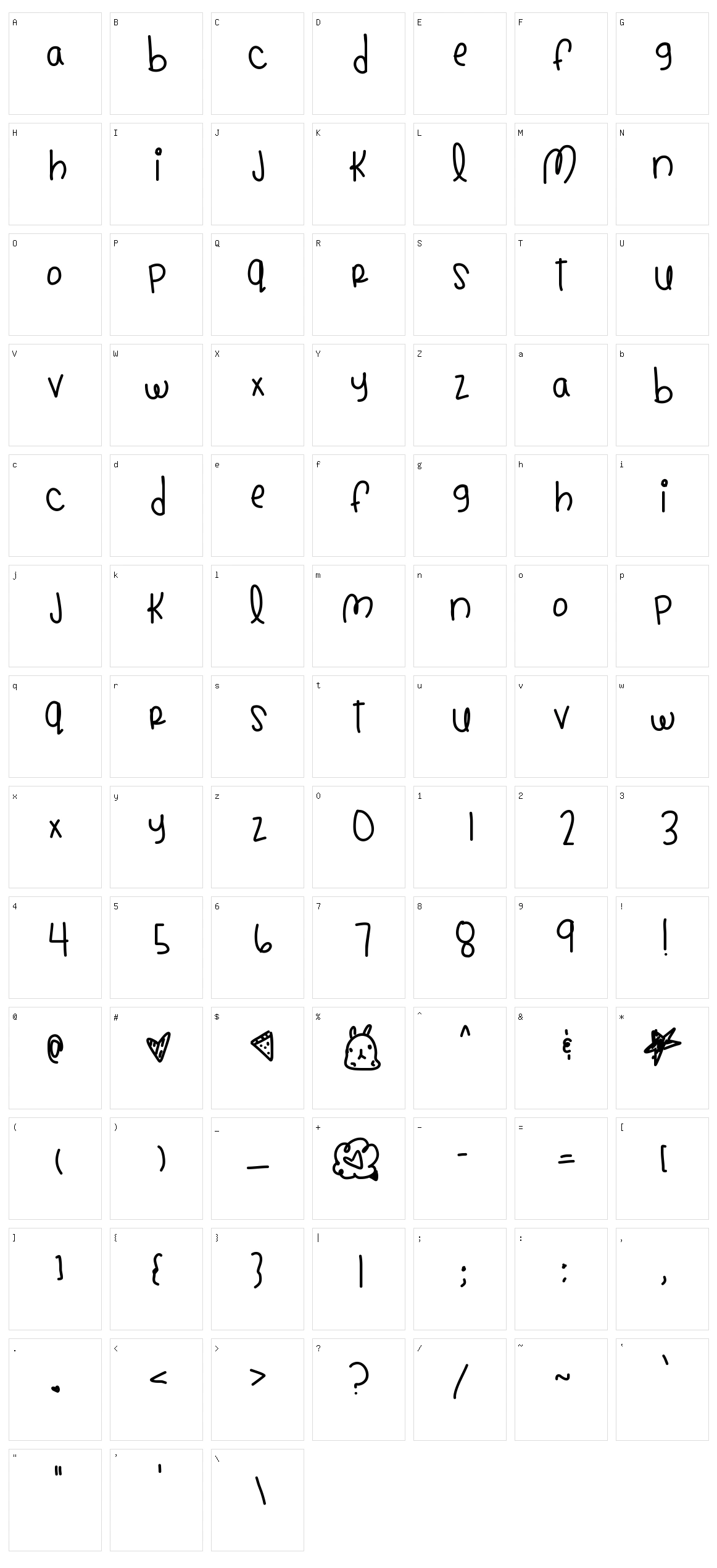
The free font Bands Make Her Dance is carefully designed by Des Gomez, showcasing a thoughtful balance of creativity and usability and falls under the Script font style. When you download the ZIP file, it contains only 11.33 KB of font files, making it lightweight and quick to download. Please review the license details below to understand permitted usage and distribution rights. If license information is not available, we recommend using this font for personal projects only or contacting the author directly for commercial usage permissions.